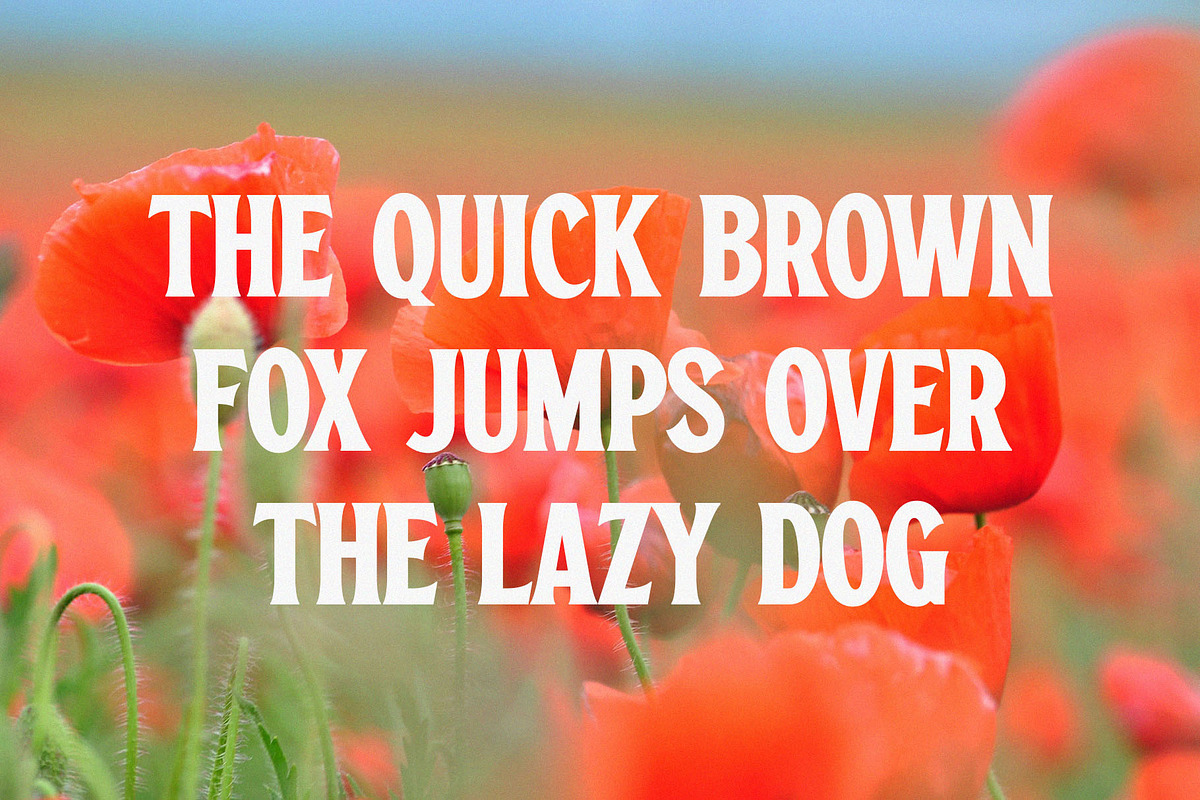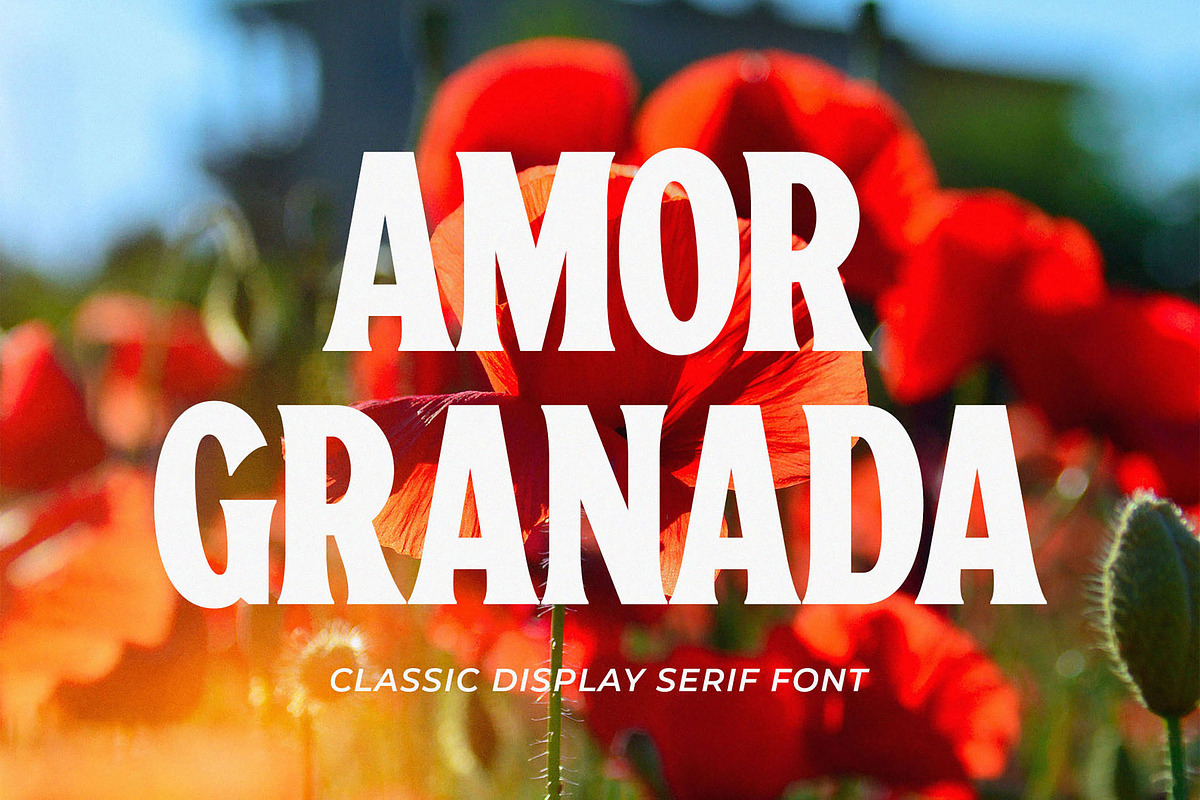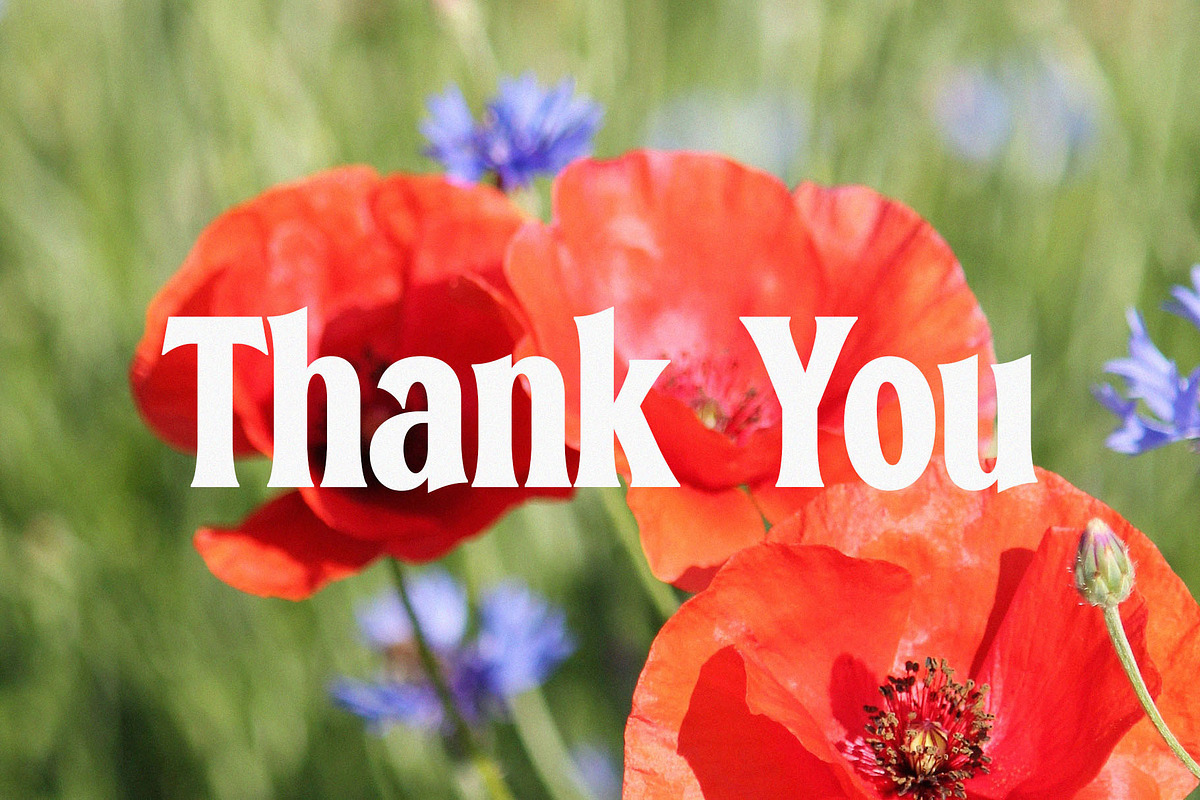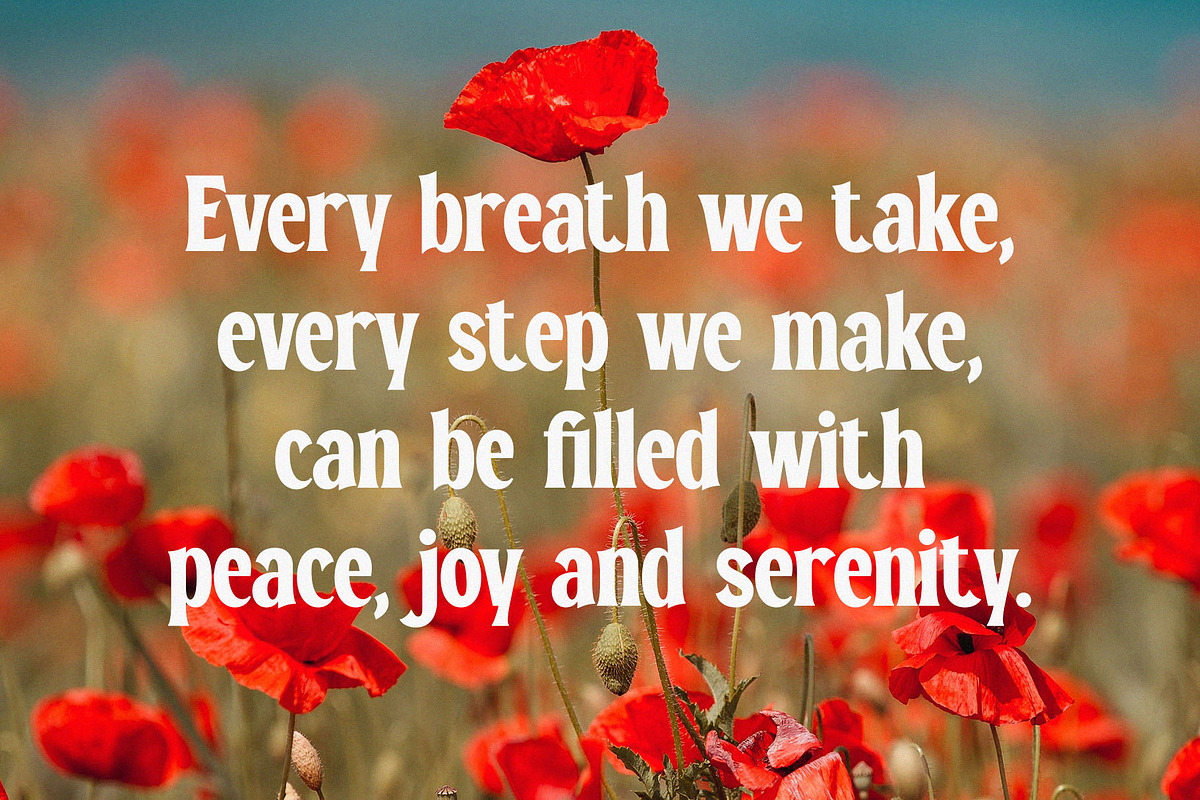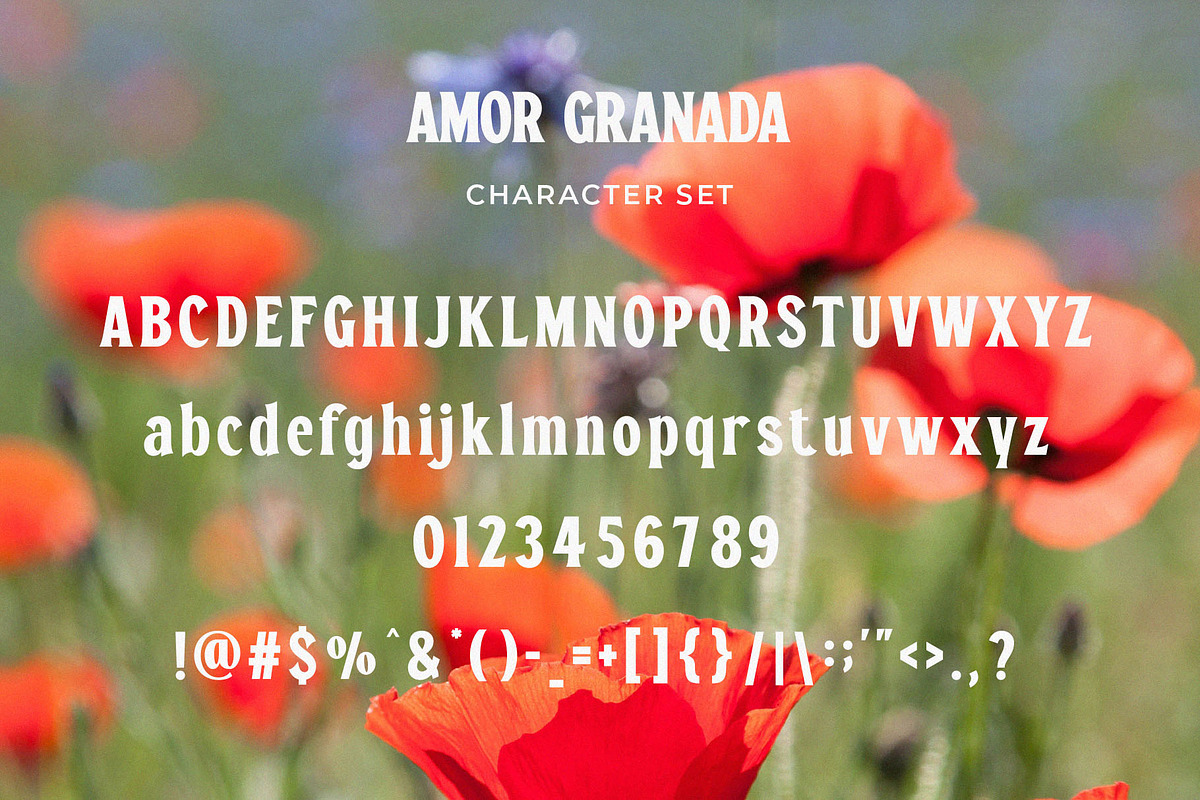
Amor Granada - Classic Display Serif
Introducing Amor Granada - Classic Display Serif. Amor Granada is a modern and simple font, best used as a display for headings, logos, branding, magazines, product packaging and invitations.